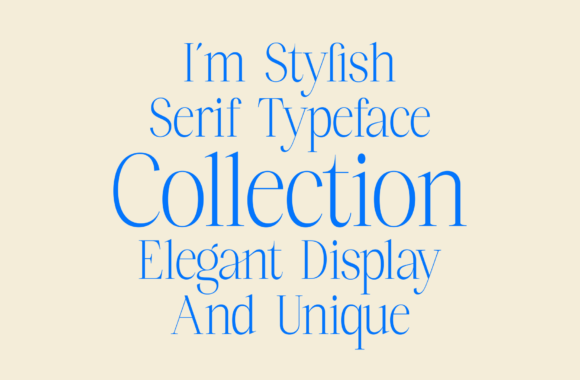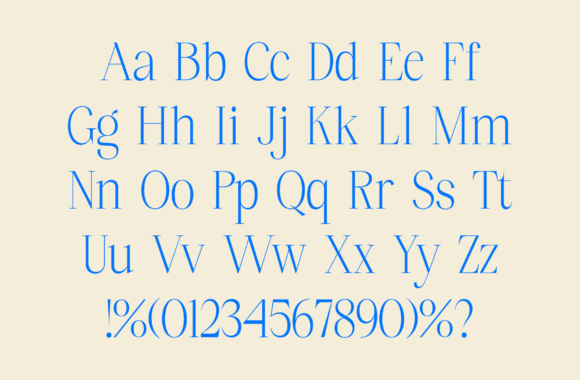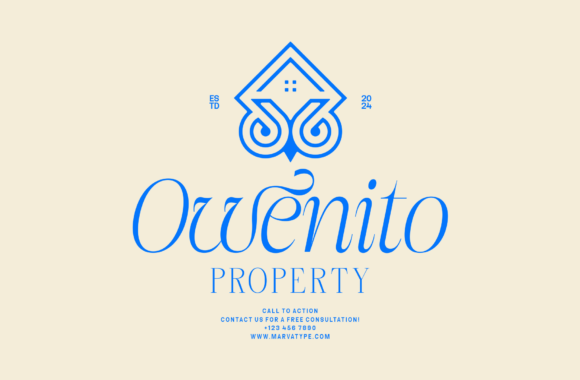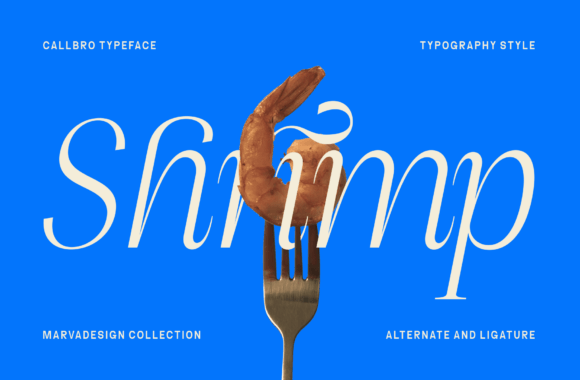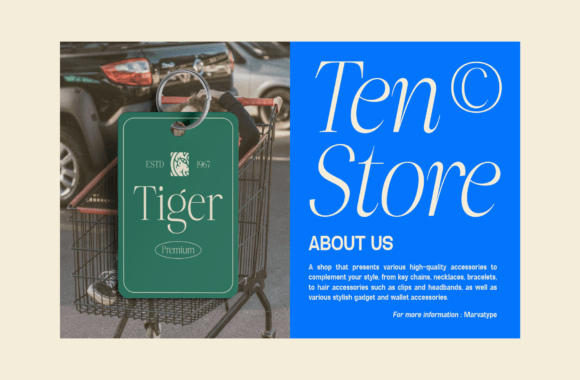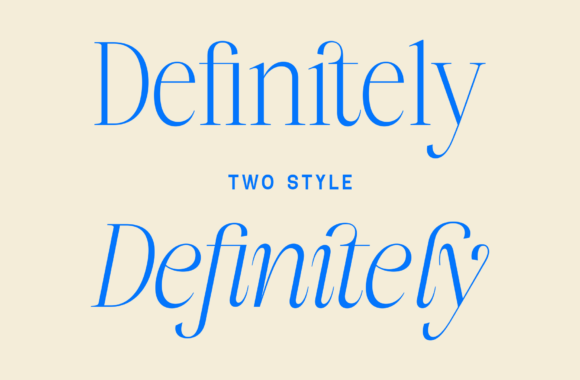
Introducing Callbro: The Elegant Serif Typeface for Sophisticated Designs
In the world of typography, a well-crafted font can elevate your design from ordinary to extraordinary. Meet Callbro, an elegant serif typeface that embodies sophistication and versatility. With its refined design and artistic flair, Callbro is the perfect choice for designers and crafters seeking to create impactful and timeless designs.
Two Distinctive Styles for Diverse Design Needs
Callbro offers two distinctive styles: Regular and Italic Semi-Script. The Regular style exudes classic elegance, making it ideal for corporate branding, editorial layouts, and professional presentations. On the other hand, the Italic Semi-Script style adds a touch of expressiveness and flair, perfect for designs that require a bit more personality. Whether you’re aiming for a traditional or modern look, Callbro has got you covered.
Unique Alternative Characters and Ligatures
One of Callbro’s standout features is its unique alternative characters and ligatures. These special characters add a touch of creativity and charm to your text, allowing you to add personality and whimsy to your designs. With Callbro, you can create beautiful and intricate text that stands out from the crowd. The alternative characters and ligatures are perfect for designing luxurious logos, elegant invitations, and high-end marketing campaigns.
Clean and Refined Design for Excellent Readability
Callbro’s clean and refined design ensures excellent readability, making it suitable for a wide range of applications. The font’s elegant serifs and carefully crafted letterforms create a smooth reading experience, even in smaller sizes. This makes Callbro an excellent choice for body text, headings, and titles. Whether you’re designing a website, brochure, or business card, Callbro’s readability ensures that your message is conveyed clearly and effectively.
Callbro’s versatility makes it suitable for a variety of design applications. Here are some examples of how you can use Callbro to elevate your designs:
- Corporate Branding: Create a luxurious and professional brand identity with Callbro’s elegant serif design.
- Editorial Layouts: Use Callbro to add a touch of sophistication to your magazine, newspaper, or book layouts.
- Professional Presentations: Elevate your presentations with Callbro’s refined design and excellent readability.
- Logos and Branding: Design a stunning logo with Callbro’s unique alternative characters and ligatures.
- Invitations and Stationery: Create beautiful and elegant invitations, business cards, and letterheads with Callbro.
Timeless Beauty with a Modern Edge
Callbro delivers timeless beauty with a modern edge, making it perfect for designers and crafters seeking to create impactful designs. The font’s elegant serif design and unique alternative characters ensure that your designs stand out from the crowd. With Callbro, you can create designs that are both classic and contemporary, making it an excellent addition to your font library.
In conclusion, Callbro is an elegant serif typeface that offers sophistication, versatility, and creativity. With its two distinctive styles, unique alternative characters and ligatures, and clean and refined design, Callbro is perfect for a wide range of design applications. Whether you’re a designer, crafter, or simply a typography enthusiast, Callbro is an excellent choice for creating impactful and timeless designs. So why wait? Discover the beauty and versatility of Callbro today and take your designs to the next level.